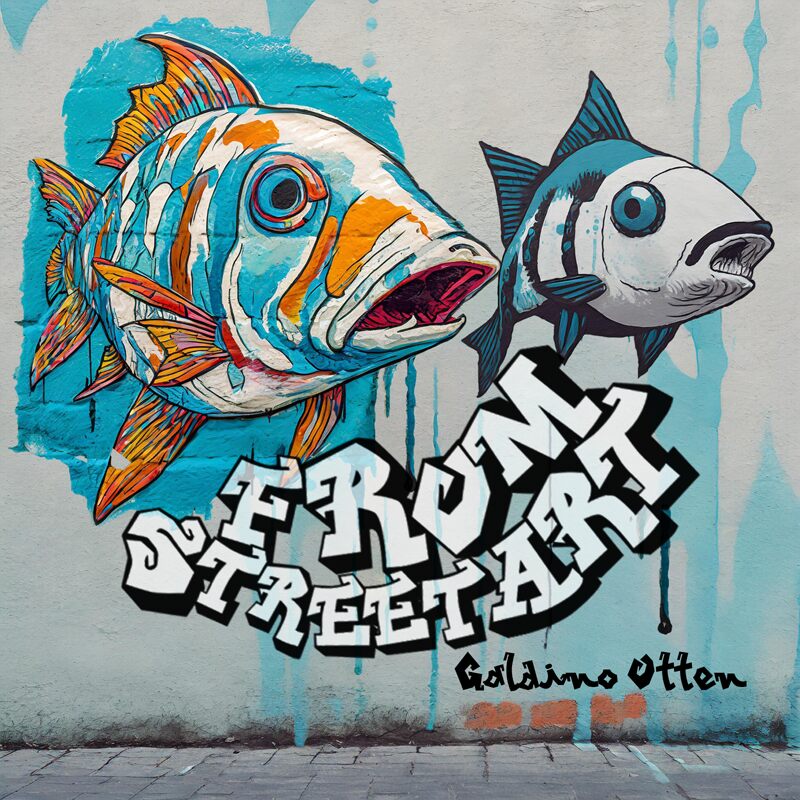
From Street Art Bold, a captivating graffiti-inspired font created by Galdino Otten Fonts, exudes raw energy and urban vibrancy. This bold and distinctive typeface boasts a striking, uncompromising aesthetic, with its angular letterforms and dynamic, textured appearance. The font's bold and unapologetic style evokes a sense of edginess and rebelliousness, making it an ideal choice for projects seeking to convey a strong, rebellious tone.
The versatility of From Street Art Bold lends itself to a wide range of design applications, from eye-catching logos and headers to impactful streetwear graphics and urban-inspired branding. Its bold, graffiti-inspired aesthetic makes it a natural fit for projects aiming to capture the gritty, authentic spirit of street art and urban culture. Whether you're designing a music album cover, a promotional poster, or a powerful social media campaign, From Street Art Bold can help elevate your project with its uncompromising and distinctive visual presence.